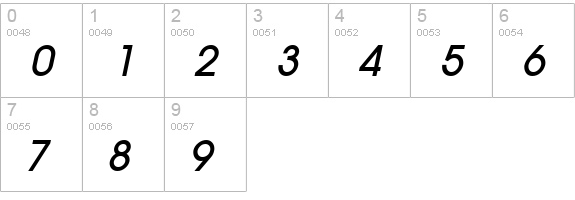
Atilla Bold Italic Font Details
Atilla Bold Italic is a strong, high-contrast, italic variant in the Atilla typeface family \xE2\x80\x94 well suited to headlines, attention-grabbing titles, and strong calls-to-action.
Atilla Bold Italic is a modern and stylish font that exudes confidence and sophistication. Its bold and italicized design makes it perfect for capturing attention and adding a touch of elegance to any project. The sharp angles and sleek curves of this font create a visually striking appearance that is sure to make a statement. What sets Atilla Bold Italic apart is not just its stunning design, but also the fact that it is available for free. Yes, you read that right - this beautiful font can be downloaded at no cost from FontsMarket.com. Whether you're working on a logo, branding materials, invitations, or any other design project, Atilla Bold Italic is sure to elevate your work and leave a lasting impression. Download it today and unleash your creativity with this exceptional font!